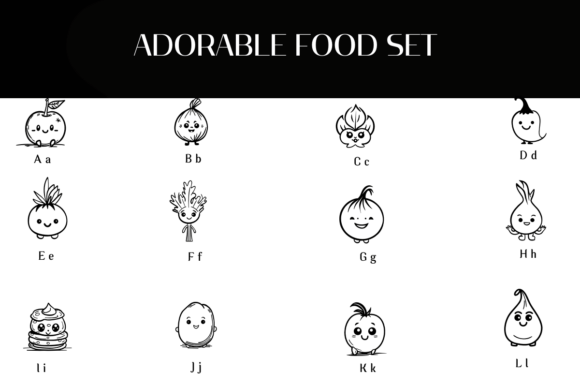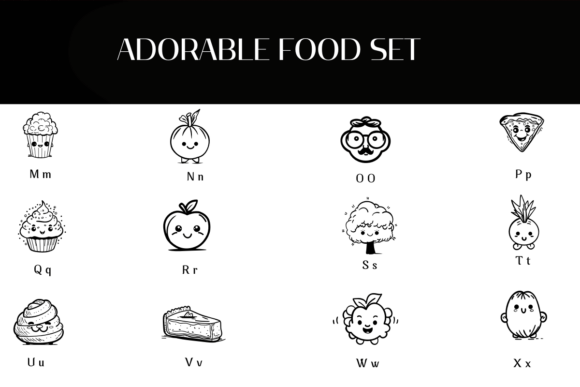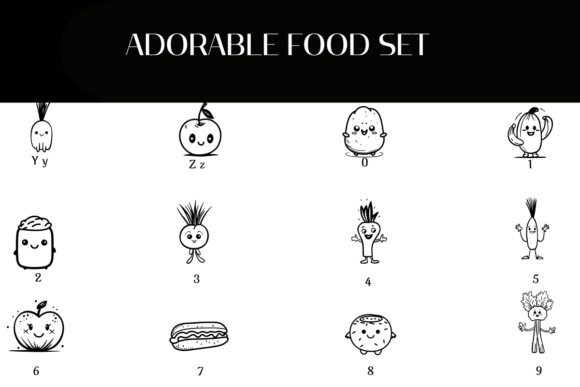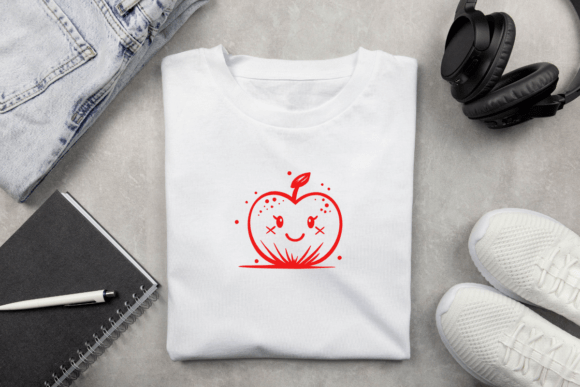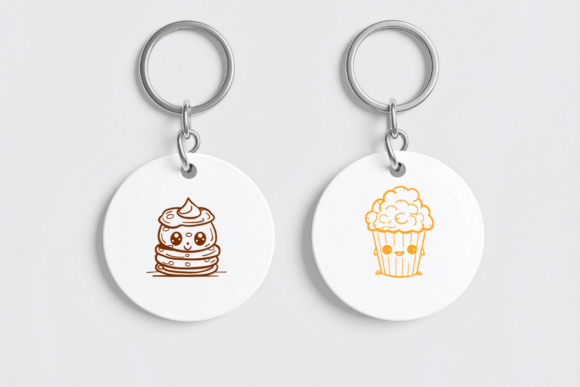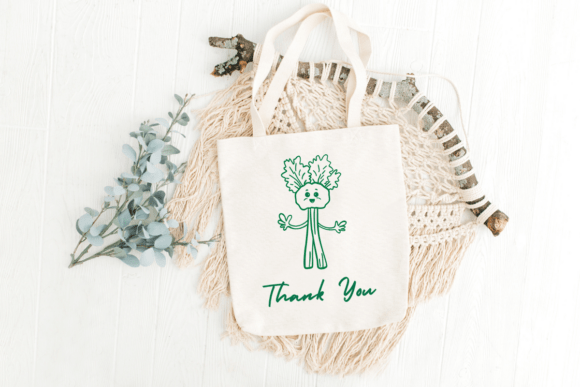
Adding a Pinch of Cuteness to Your Designs
Have you ever been working on a project, and suddenly, you just can’t seem to get that perfect touch of whimsy? Maybe it’s a children’s book cover, a social media post for a foodie client, or a playful menu design – whatever it is, you know it needs something special. That’s where the Adorable Food Set Font comes in, a game-changing dingbats font that will bring a smile to your audience’s faces.
This adorable font is more than just a cute collection of characters – it’s a professional toolkit that allows you to add consistent, high-quality illustrations to your work with ease. With over 20 handcrafted “kawaii” characters, the Adorable Food Set Font is the perfect addition to any designer’s arsenal, making it a valuable asset for creators who want to add a touch of magic to their designs.
Key Features of Adorable Food Set Font
- Font Family: Adorable Food Set Font is a unique font family designed to resemble food items, ideal for use in restaurants, food blogs, and culinary-related projects.
- Character Count: The font family includes over 1000 characters, including uppercase and lowercase letters, numbers, punctuation marks, and special characters.
- Unique Characteristics: The font family’s unique design features, such as stylized food items, make it an ideal choice for adding a touch of whimsy and personality to culinary-related projects.
Adorable Food Set Font Review
I recently had the chance to work with Adorable Food Set Font, and here’s my honest review.
- The font is extremely cute and playful, making it perfect for food-related designs, like restaurant menus or dessert packaging.
- The font family includes a wide range of styles, from bold and fancy to thin and delicate, giving designers plenty of options to choose from.
- The font is well-documented, with clear instructions on how to use it, which is a big plus for designers who want to get started quickly.
- The font is limited in its functionality, only offering a few different styles and no advanced features like ligatures or contextual alternates.
- The font may not be suitable for large-scale text or body copy, as it can become difficult to read in smaller sizes.
Overall, I think Adorable Food Set Font is a great choice for designers who want to add a playful touch to their food-related projects. While it has some limitations, its cuteness and versatility make it a valuable addition to any designer’s toolkit.
For optimal results, use the Adorable Food Set Font in conjunction with colorful graphics and playful layouts.
Experiment with different font sizes and styles to create visual interest and emphasize key messages.
The Adorable Food Set Font is perfect for:
- Food blog posts and social media graphics
- Restaurant and cafe menus
- Food-related advertising and promotions
Q: What is the recommended font size for using the Adorable Food Set Font in designs?
The recommended font size for the Adorable Food Set Font is between 12-24 points. This range provides optimal readability and visual appeal for various design applications, including food labels, menus, and packaging.